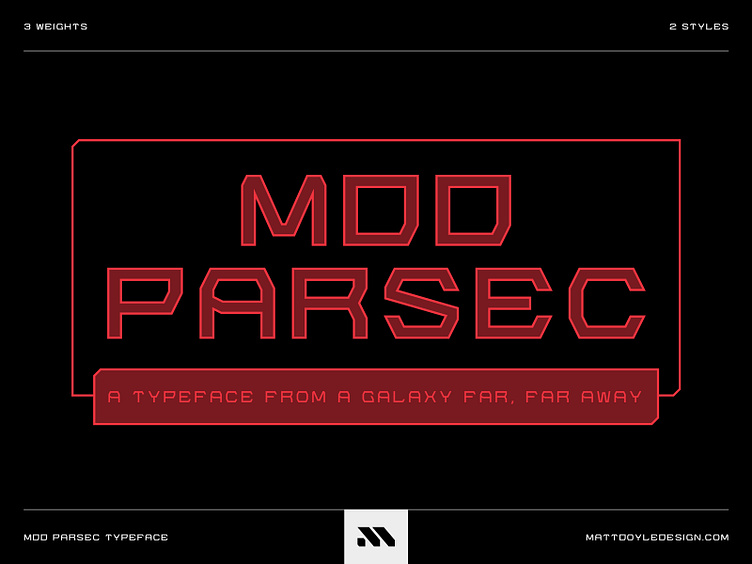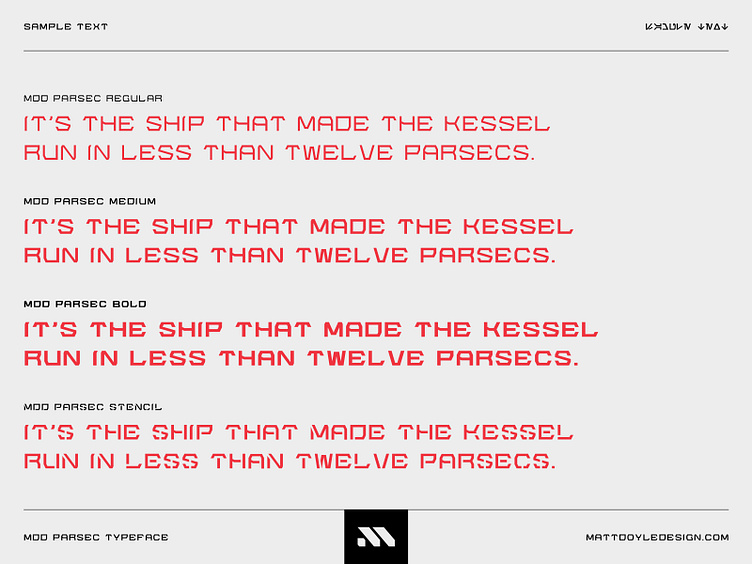
MDD Parsec Font Family
The design of this typeface is inspired by the Aurebesh alphabet from Star Wars.
MDD Parsec is great for logo design, user interface, web design, and much more.